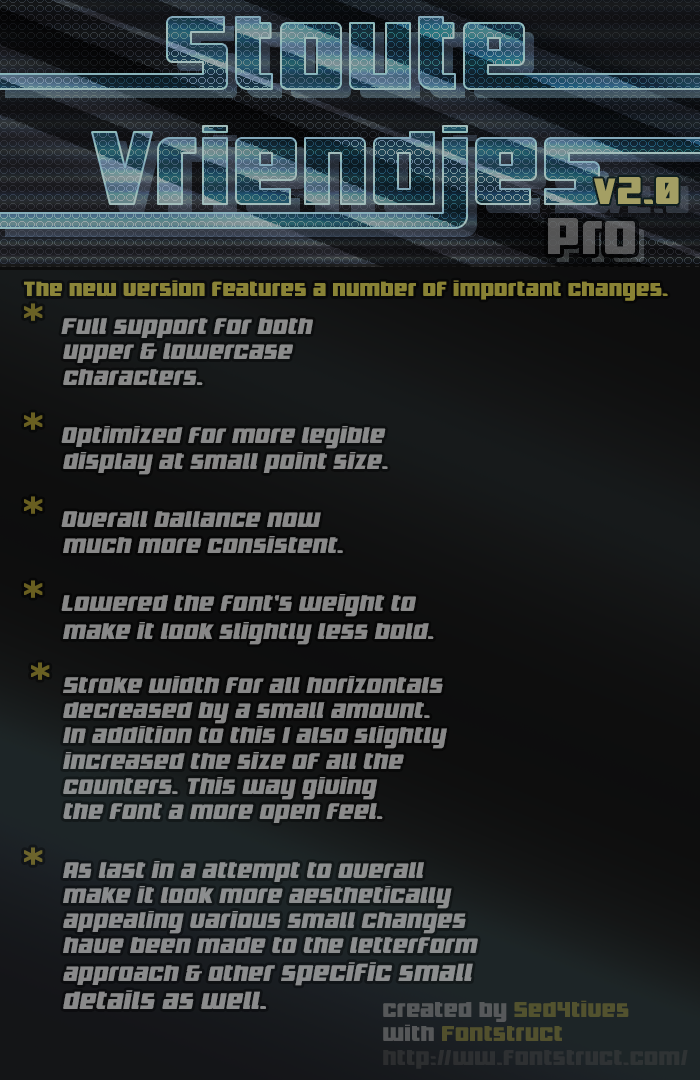
• Updated pro version for my previous font STOUTE VRIEDJES.
*    Full support for both upper & lowercase characters.
*    Optimized for more legible display at small point size.
*    Overall ballance now much more consistent.
*    Lowered the font's weight to make it look slightly less bold.
*    Stroke width for all horizontals decreased by a small amount. In addition to this I also slightly increased the size of all the counters. This way giving the font a more open feel.
*     As last in a attempt to overall make it look more aesthetically appealing various small changes have been made to the letterform approach & other specific small details as well.